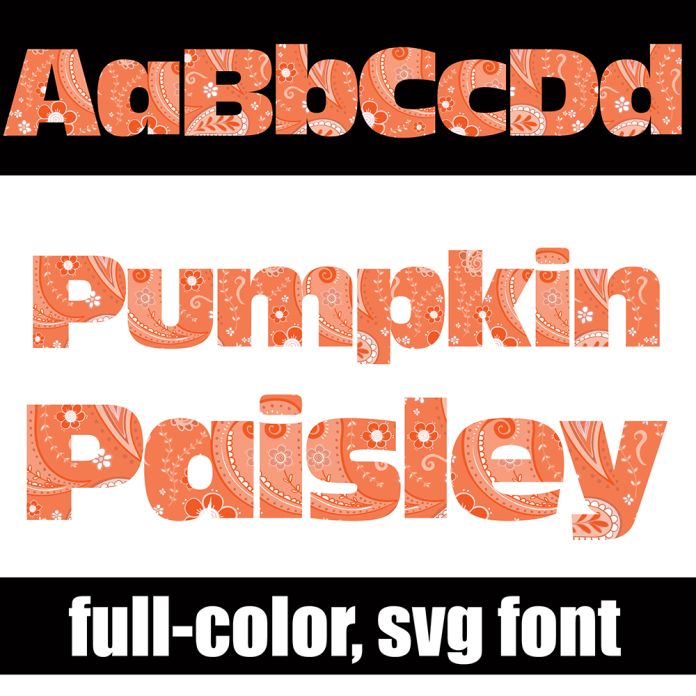
This full-color font features a bulky sans serif in a pumpkin-colored paisley design. There is an alt version you can access through your system's character map that contains additional colors of all the letters. This font works best for titles, displays, posters and more. Please note color fonts will show as black in non compatible programs. This font type is compatible with Silhouette Studio.